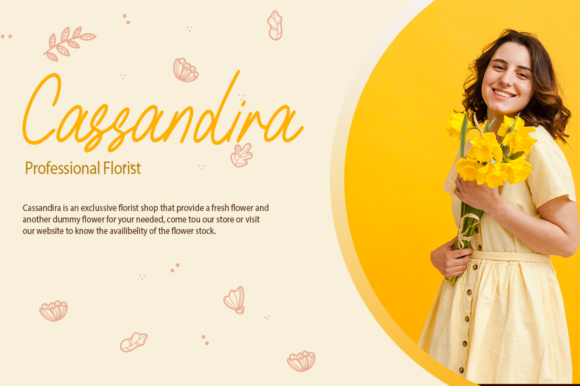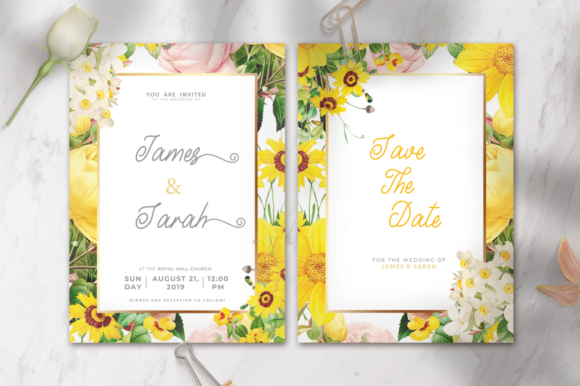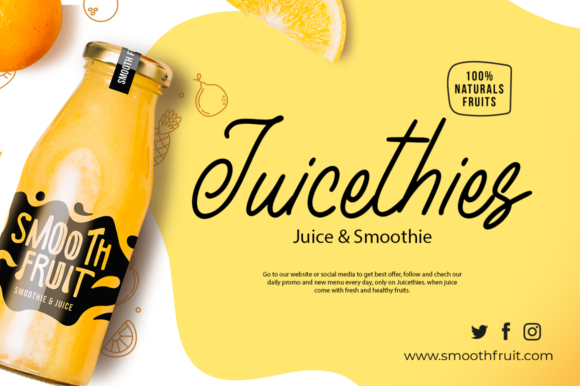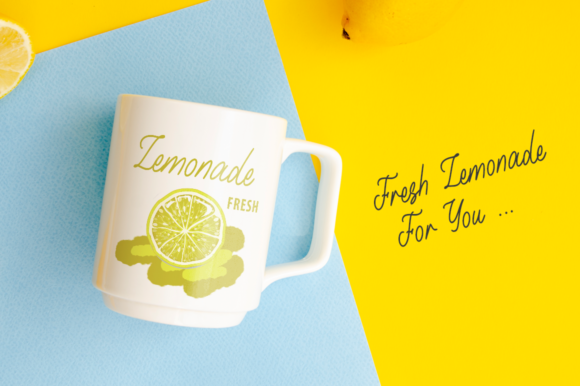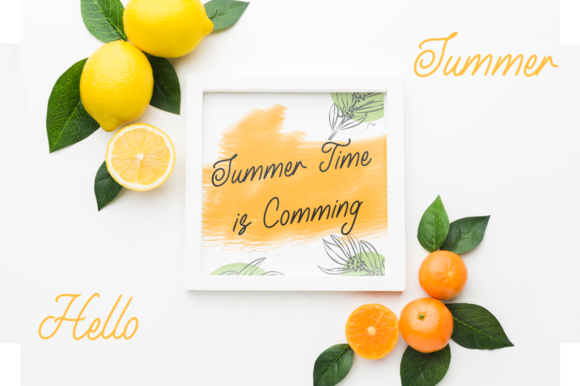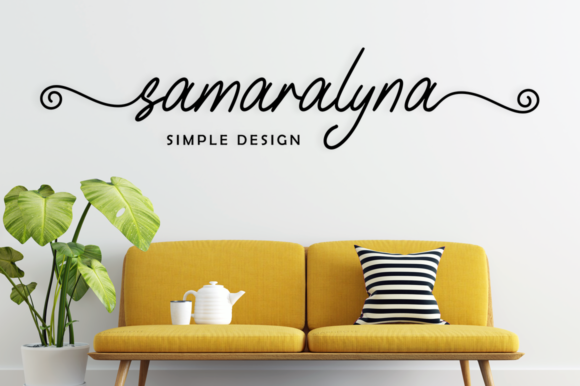
Adding a Touch of Elegance to Your Designs
Have you ever stared at a blank page, pen in hand, trying to come up with the perfect phrase to express your feelings? For many of us, it’s the little details that make a design truly special. Whether it’s a heartfelt thank you note or a romantic wedding invitation, the right font can make all the difference.
That’s where the Beauty Homelia Font comes in – a charming and elegant script that adds a touch of sophistication to any design. This versatile font is perfect for creating customized logos, business cards, quotes, and more. With its PUA encoding, designers can easily access all the glyphs and swashes, giving them the freedom to get creative.
Beauty Homelia Font Key Features
- Font Family: Beauty Homelia is a beautiful, elegant script font, perfect for wedding invitations, greeting cards, and other creative projects.
- Character Count: The font contains a total of 330 characters, including uppercase and lowercase letters, numbers, and special characters.
- Size and Resolution: The font is available in a single weight, with a recommended size range of 12-48 points, and a resolution of 300 DPI for high-quality printing.
- Unique Characteristics: Beauty Homelia Font features beautiful, flowing connections between letters, making it ideal for creating elegant and sophisticated designs.
Beauty Homelia Font Review
Overall, I think Beauty Homelia is a beautiful and elegant font, perfect for creating a sophisticated and feminine atmosphere in your designs. ✨ Here are some things that I think work well:
- Delicate lines and curves that evoke a sense of luxury and refinement
- Wide range of weights and styles to choose from, making it versatile for various design applications
- Good legibility, even at smaller font sizes, which is essential for body text
- Supports multiple languages, making it suitable for international designs
However, like any font, Beauty Homelia has its limitations. ⚠️ Some of the issues I’ve encountered include:
- May not be the best choice for bold, attention-grabbing headlines, as it can come across as too delicate
- Some of the thinner weights may be difficult to read in certain lighting conditions
- Not suitable for informal or playful designs, as it has a more formal and elegant tone
Overall, I think Beauty Homelia is a great choice for designers who want to create a sophisticated and elegant look. While it may not be the best fit for every design project, it’s definitely a versatile and beautiful font that can add a touch of luxury to your work.
For the most striking results, use the Beauty Homelia Font in conjunction with elegant imagery and subtle color schemes.
- Beauty and fashion branding.
- Wedding and event design.
Montserrat is a sans-serif font that is designed to be highly legible, even in small sizes. It is a great choice for designs that require a strong and modern feel. Montserrat is perfect for urban and tech-related designs, such as websites, apps, and magazines.
How do I access the font’s advanced features, such as ligatures and swashes?